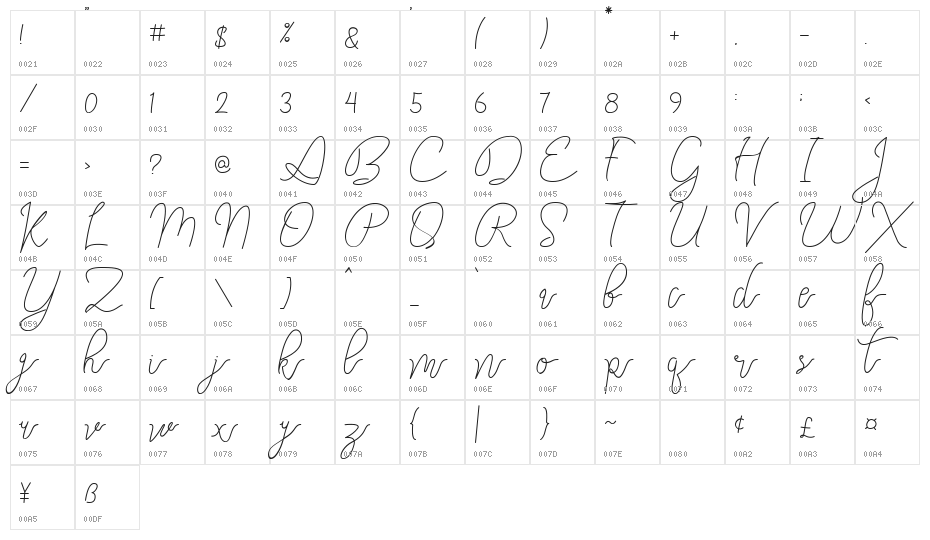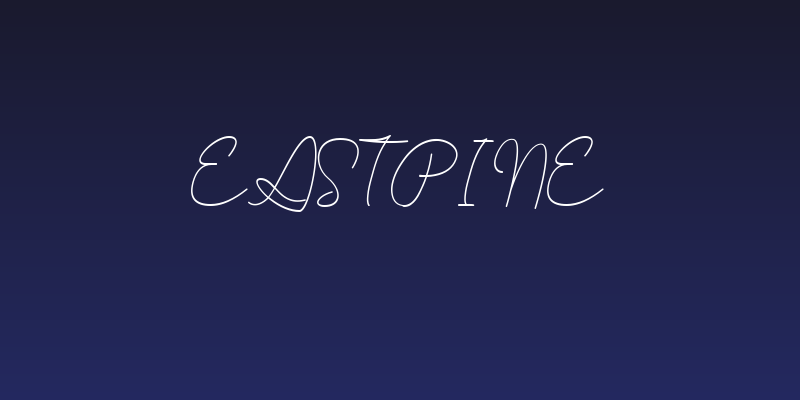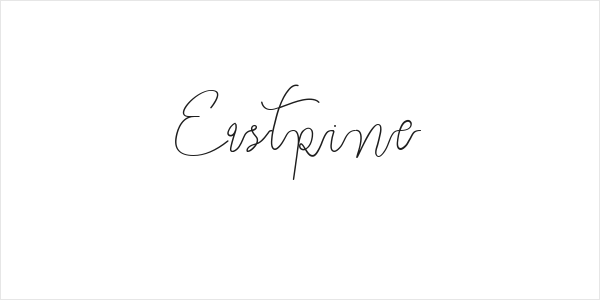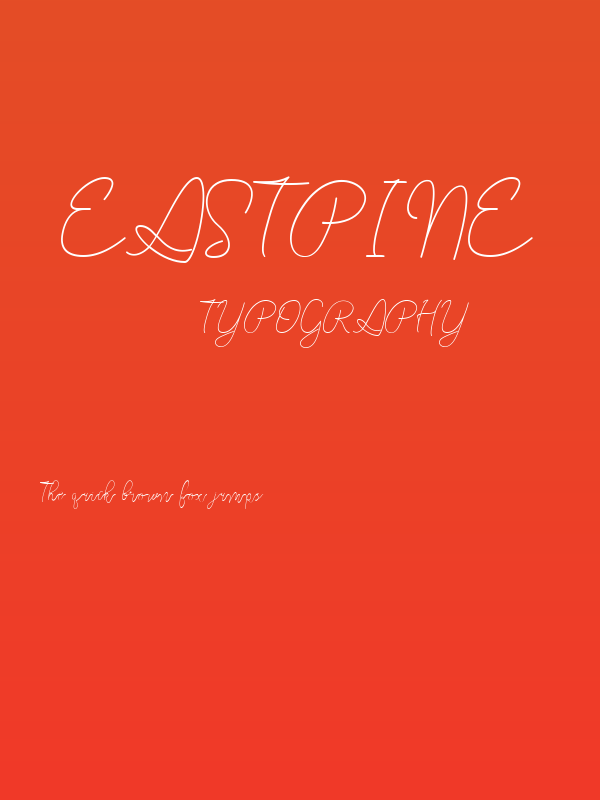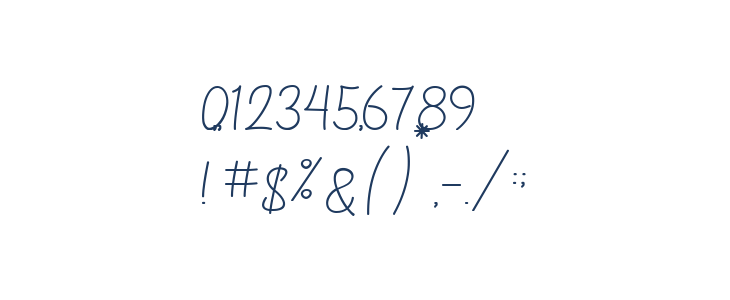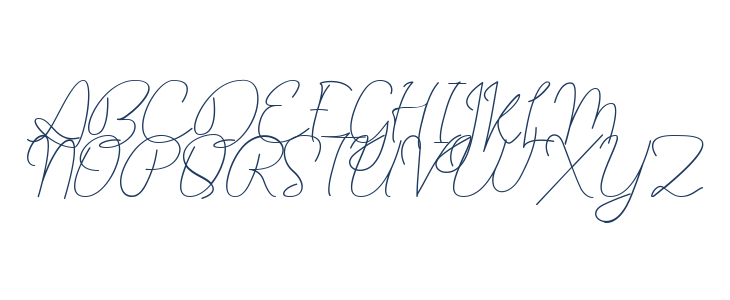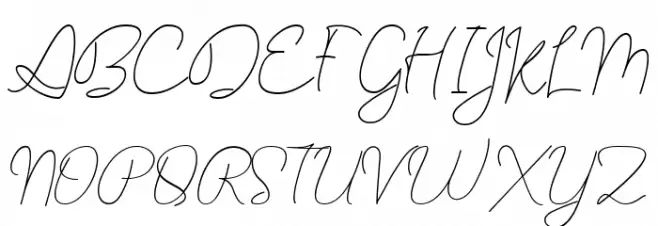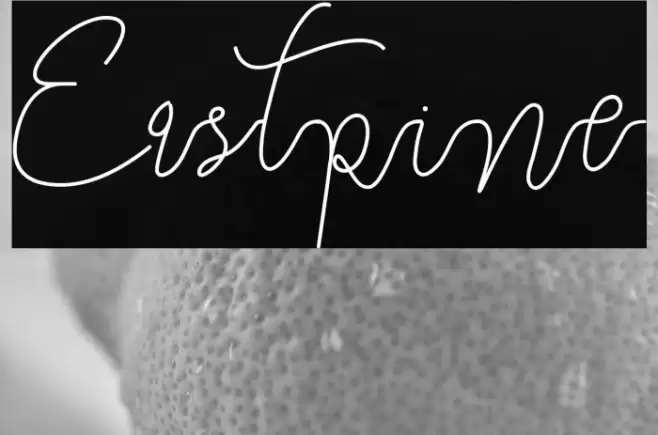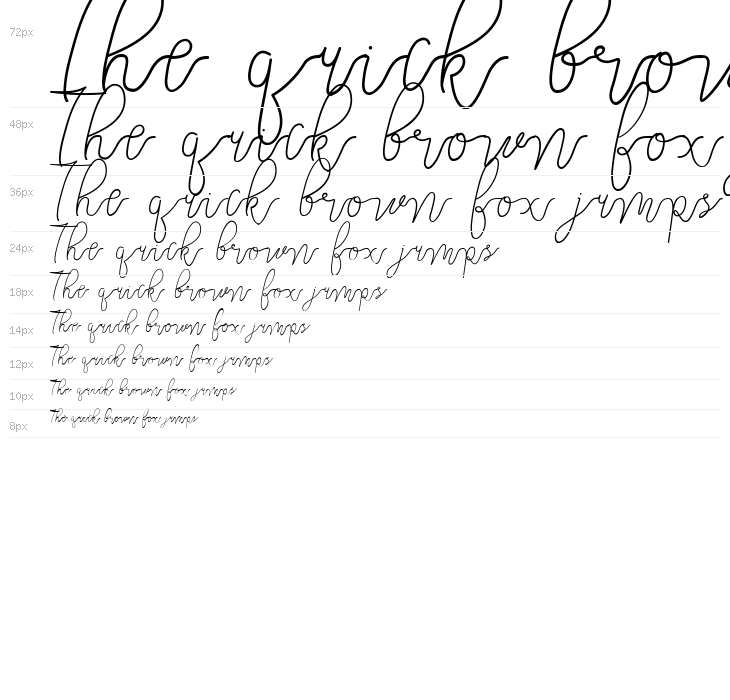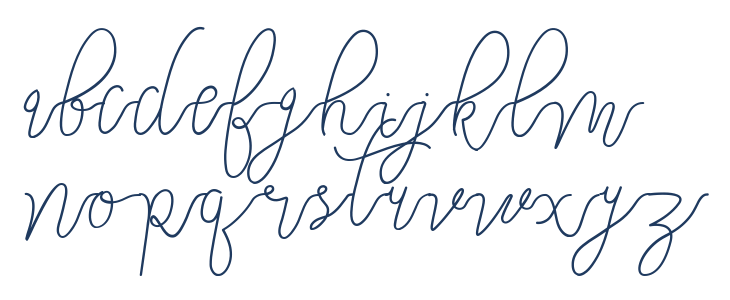
Eastpine Font
A delicate, cursive script font with a handwritten, elegant style characterized by thin, flowing lines and a slightly whimsical appearance.
| Overall Style | Elegant, Romantic, Personal |
| Use Case | Headlines, Invitations, Personal stationery, Logos |